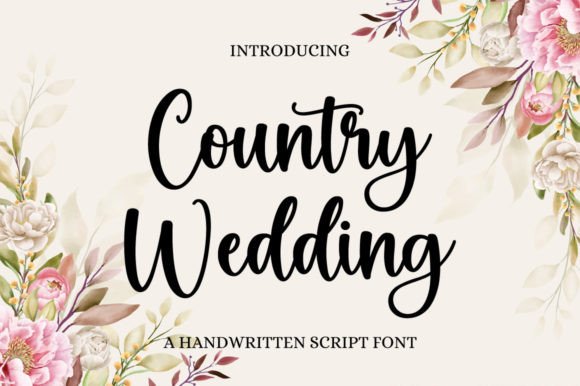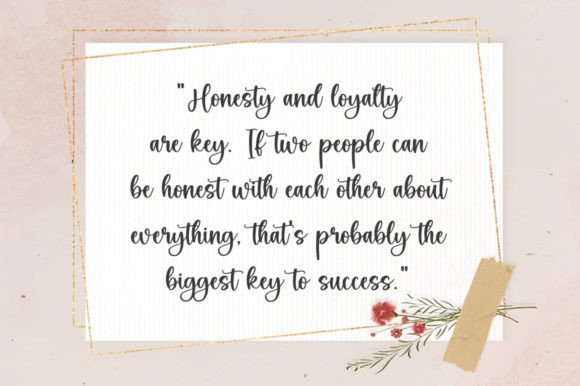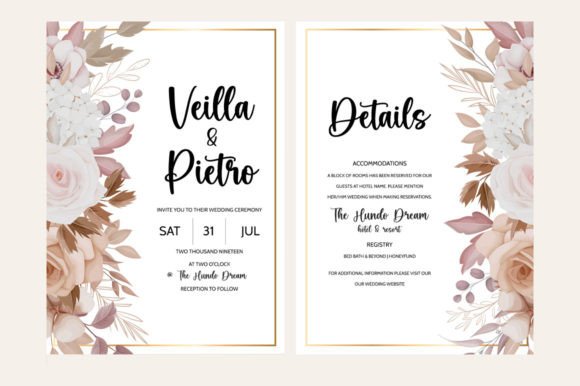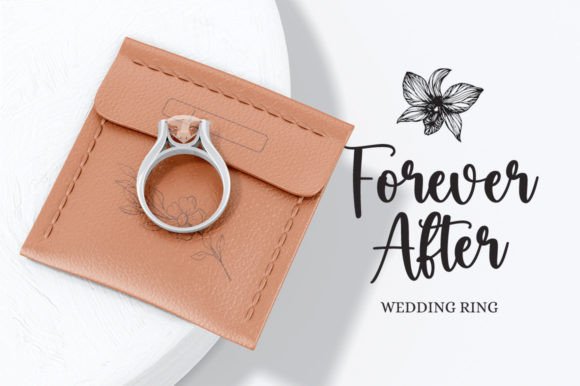
Country Wedding Font
About the Country Wedding Font
Explore the possibilities with Country Wedding Font, a font that offers both beauty and functionality. Country Wedding is a delicate and refined script font that emanates sophistication and elegance. Its stylish characters make this font the perfect match for any project.
Country Wedding’s elegant, flowing forms are ideally suited for wedding invitations, stationery, and branding projects requiring a touch of refined femininity. It works beautifully in headlines, short quotes, and logos, adding a sophisticated touch to packaging designs or signage. However, its delicate nature makes it unsuitable for body text or lengthy paragraphs, where readability would suffer.
For optimal visual impact, pair Country Wedding with a clean sans-serif font like Lato or Montserrat for body text to provide a strong contrast and improve readability. Alternatively, a classic serif like Garamond or Playfair Display can create a more traditional and harmonious feel. Avoid pairing it with overly decorative or highly contrasting fonts that would detract from its inherent elegance.
The overall personality of Country Wedding is sophisticated and romantic, lending itself to brands associated with luxury, handmade goods, or events requiring a sense of timeless charm. Its delicate strokes and graceful curves evoke a feeling of gentle refinement.